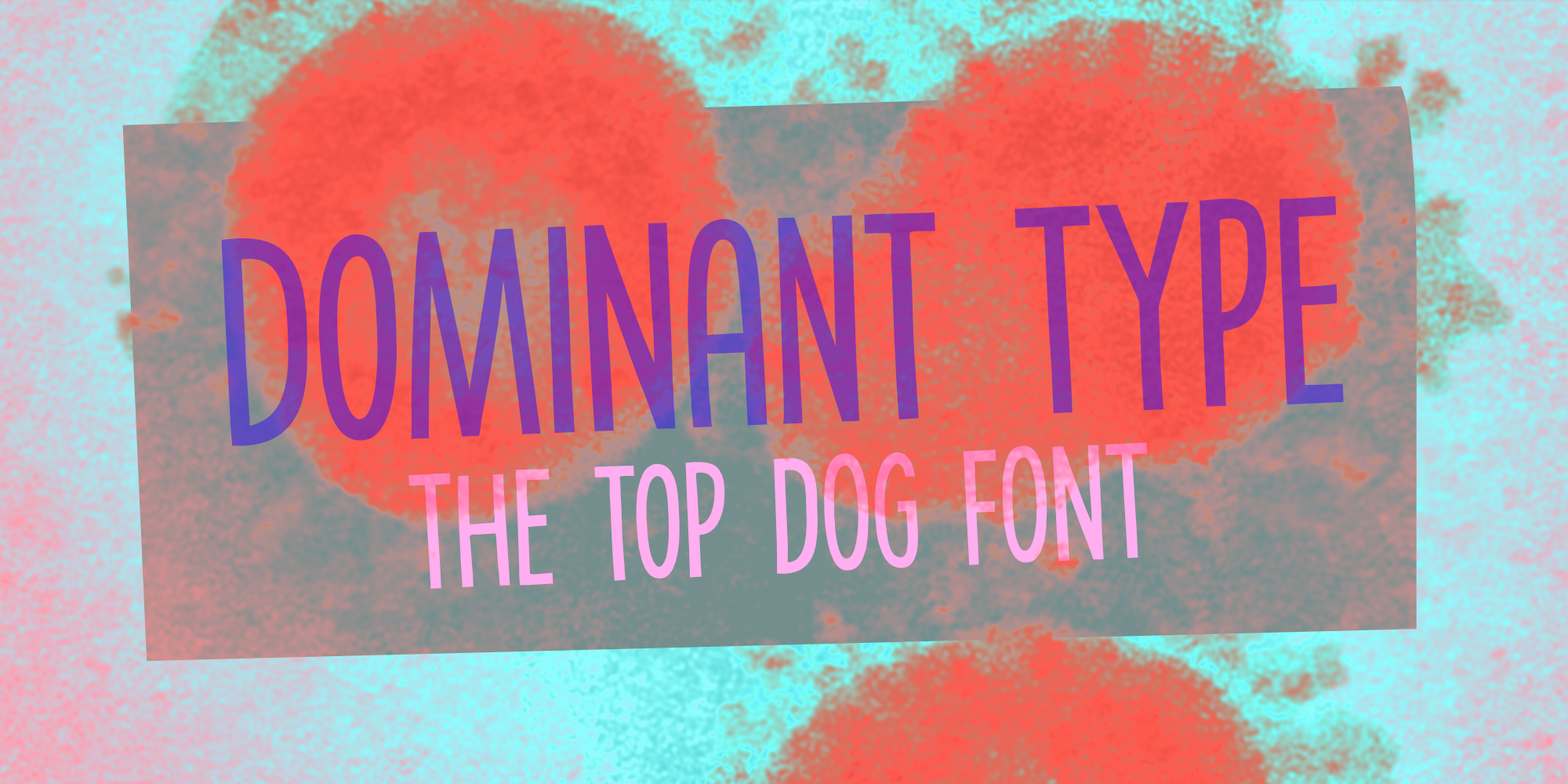
Dominant Type Font is perfect for powerful corporate branding, commanding advertising campaigns, authoritative business presentations, leadership communications, executive materials, bold marketing statements, competitive industry promotions, and influential professional messaging.
This commanding sans-serif typeface is exciting because it projects absolute authority and uncompromising leadership through bold letterforms that dominate visual space and ensure your message commands immediate attention and respect from any audience.
The Dominant Type Font family includes medium, bold, heavy, and black weights with commanding alternates, authority-inspired decorative elements, and leadership variants that enhance the powerful, authoritative atmosphere of any executive-level design project.
Commanding and authoritative, Dominant Type Font Free Download represents the pinnacle of leadership typography through its projection of absolute authority and executive presence. This powerful font embodies the confidence and decisiveness that separates industry leaders from followers, making it essential for organizations that demand immediate recognition and unquestioned authority in their communications. Its bold presence reflects the strength and determination required to dominate competitive markets and lead successful organizations, resonating with executive audiences who understand that leadership requires both vision and the courage to make tough decisions. Perfect for Fortune 500 companies and industry leaders, this font ensures your message carries the executive credibility and commanding presence that serious business leadership demands. Whether used for CEO presentations or market-dominating campaigns, Dominant Type Font Free Download delivers the leadership authority and competitive dominance that connects with audiences who respect strength and expect nothing less than absolute excellence from market leaders who shape industries and drive economic progress.